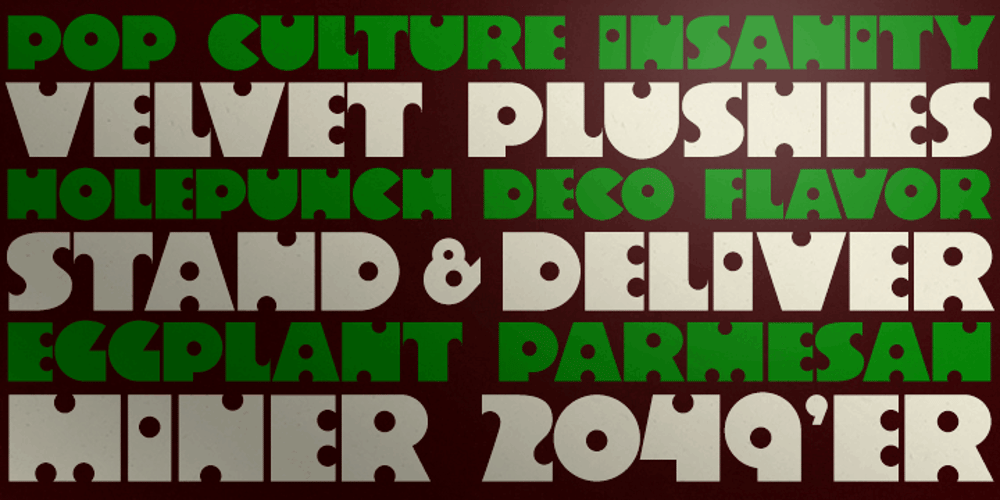
Velvet Teen Font Family was designed by Phil Bracco and published by Pink Broccoli. Velvet Teen contains 1 styles and family package options. An art deco style typeface inspired by the poster from the 1971 film, Velvet Vampire. Such a playful font for a horror flick!